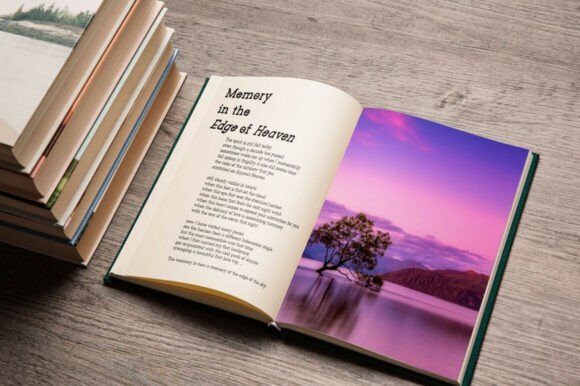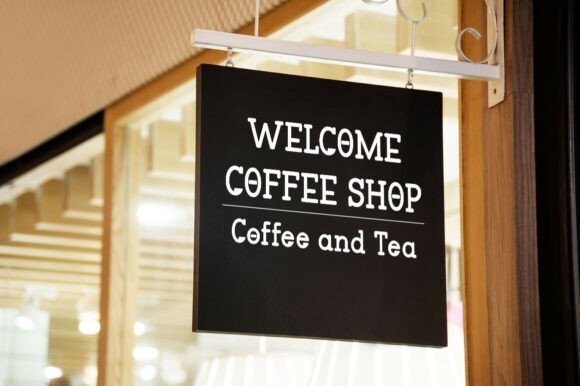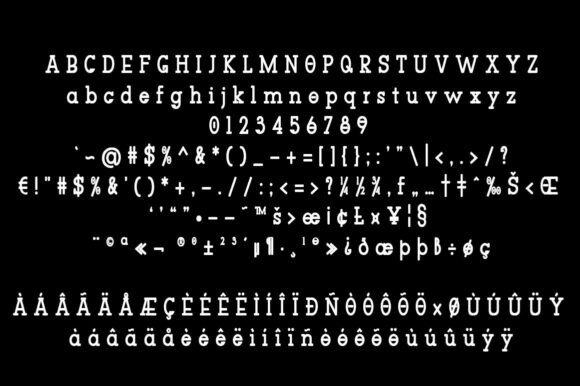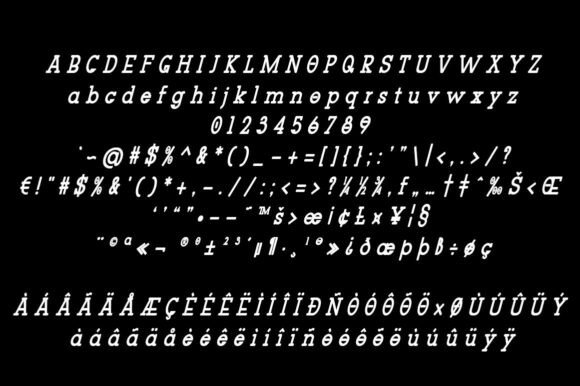
Introducing Beuton Bold Font: The Ultimate Modern Typeface for Designers and Crafters
In the world of typography, a new font has emerged that’s taking the design community by storm. Say hello to Beuton Bold Font, a modern typeface that’s perfect for a wide range of creative projects. Whether you’re a designer, crafter, or DIY enthusiast, Beuton Bold is sure to elevate your work to the next level.
What is Beuton Bold Font?
Beuton Bold Font is a sleek and contemporary typeface that’s designed to make a statement. With its clean lines, bold strokes, and modern aesthetic, Beuton Bold is perfect for projects that require a touch of sophistication and elegance. This font is ideal for use in various design applications, including stationery, logos, t-shirts, paper, print designs, website headers, photo frames, leaflets, music covers, posters, image sliders, and more.
Key Features of Beuton Bold Font
So, what makes Beuton Bold Font so special? Here are some of its key features:
- Modern Design: Beuton Bold Font boasts a modern design that’s perfect for creating fresh and contemporary designs.
- OpenType Features: Beuton Bold supports OpenType features, which allow for advanced typographic control and flexibility.
- Wide Range of Applications: This font is suitable for a wide range of design applications, from print to digital media.
- Easy to Use: Beuton Bold Font is easy to use, even for those without extensive design experience.
Here are some tips and tricks for getting the most out of Beuton Bold Font:
- Experiment with Different Sizes: Try using Beuton Bold Font in different sizes to create visual interest and hierarchy.
- Combine with Other Fonts: Pair Beuton Bold Font with other fonts to create a unique and harmonious design.
- Use in Digital and Print Media: Take advantage of Beuton Bold Font’s versatility by using it in both digital and print media.
In conclusion, Beuton Bold Font is a modern typeface that’s perfect for designers and crafters looking to elevate their creative projects. With its clean design, OpenType features, and wide range of applications, Beuton Bold is sure to become a staple in your font library. Whether you’re working on a logo, website header, or print design, Beuton Bold Font is the perfect choice.